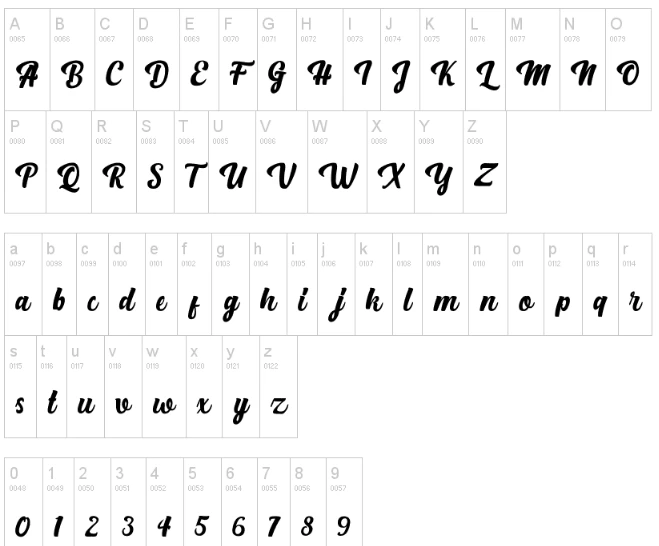
Bright is now available! It’s a lovely brush and script font. Debut Studio designed and shared Bright. Because of its beautiful glyphs and texture, the typeface looks fantastic in its curving form. The Font is called Go Setter, and it may be used in any project to make it more lovely. The Font has previously been employed in a number of well-structured projects, where it was used to create logos.
If you’re a designer who enjoys bold logotypes, brands, and other design demands, you’ll want to have this Font. This typeface is perfect for logo creation; utilizing it in your logo will make it look really cool and professional on t-shirts, branding products, and other design projects.
NameBright Script Font
StyleScript
DesignerDebut studio